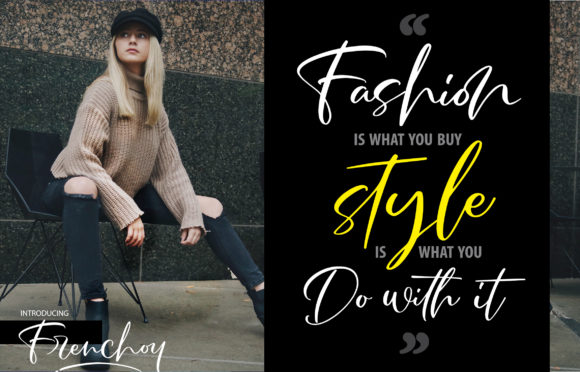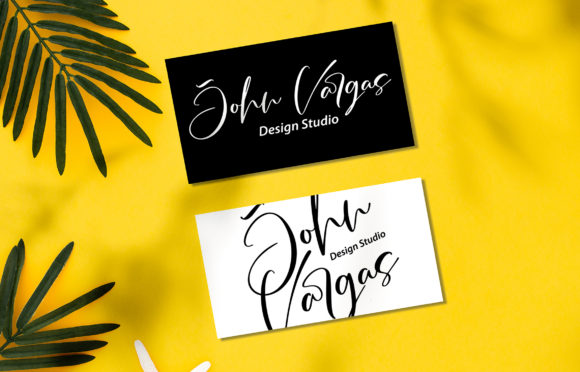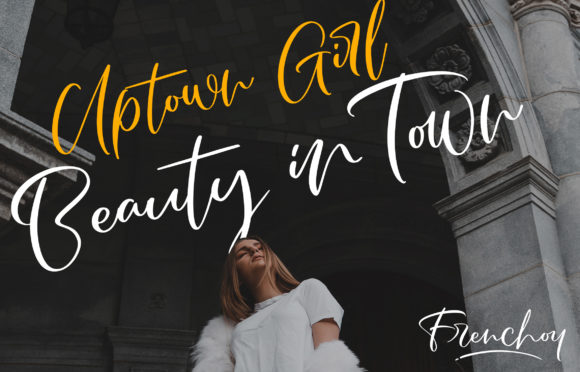
Introduction to Frenchoy Font
Frenchoy is a sweet and flowing handwritten font.
It is PUA encoded which means you can access all of the glyphs and swashes with ease It features a varying baseline, smooth lines, gorgeous glyphs and stunning alternates.
Key Features of Frenchoy Font
Why Choose Frenchoy Font?
Frenchoy Font offers exceptional quality and versatility, making it a valuable addition to your design toolkit. Whether you’re creating for personal projects or commercial use, Frenchoy Font delivers professional results.